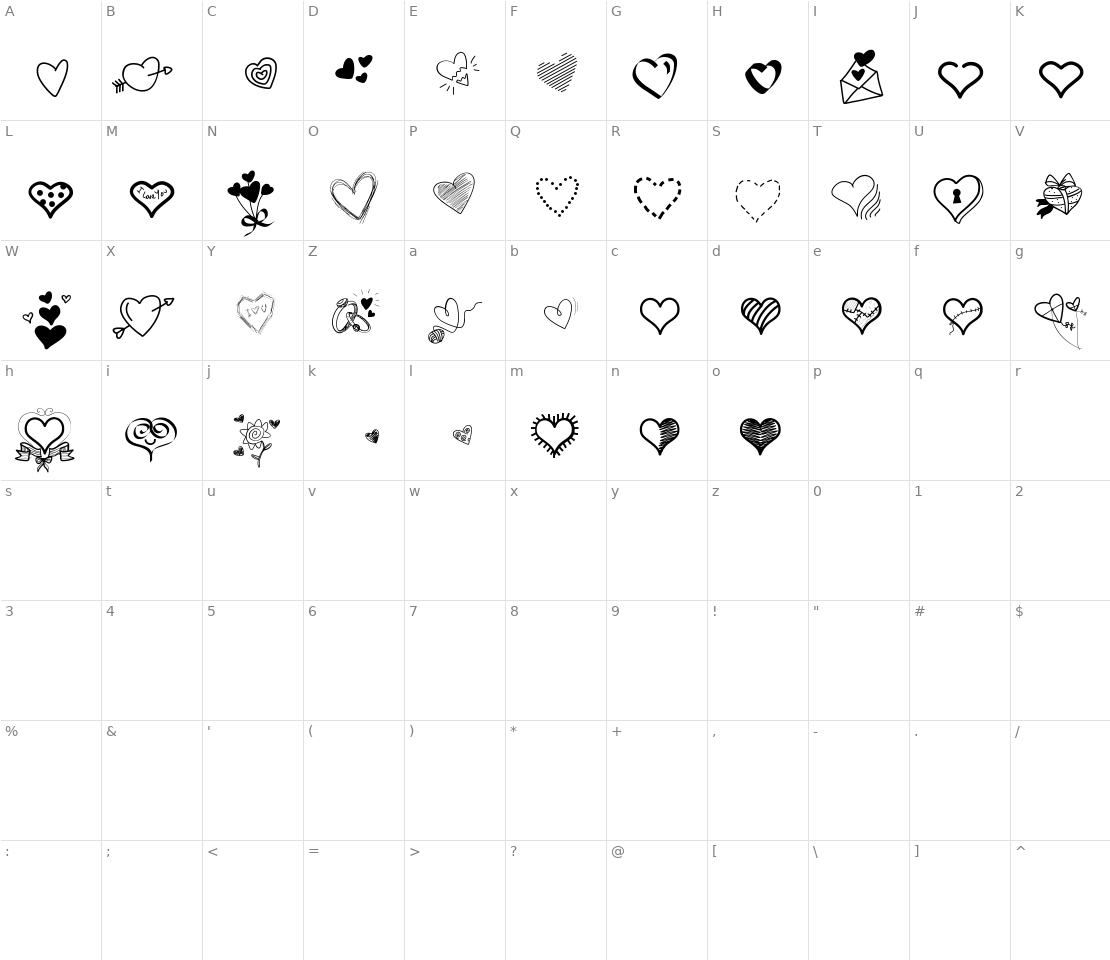
PW Little Hearts
PW Little Hearts is a dingbat font from Peax Webdesign filled with hand-drawn heart symbols in various styles, from simple outlines to doodled and decorated variations. The sketchy, uneven linework gives it a warm, personal feel that fits Valentine's Day cards, romantic stationery, wedding invitations, and social media graphics where you need a quick scattering of love-themed ornaments.